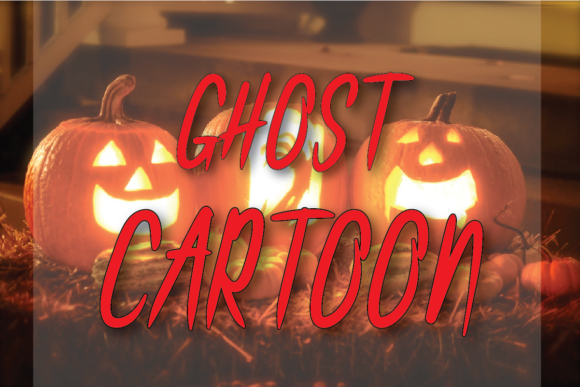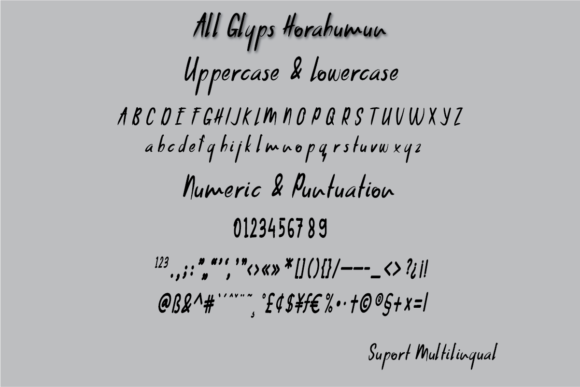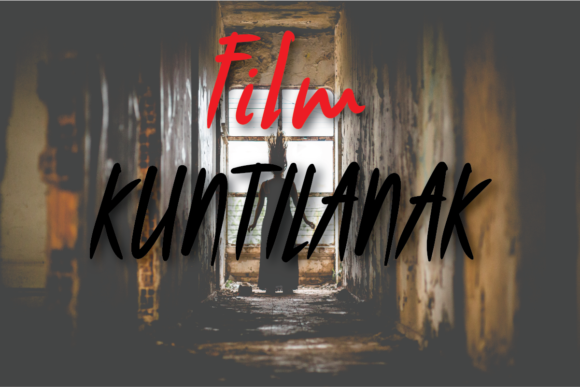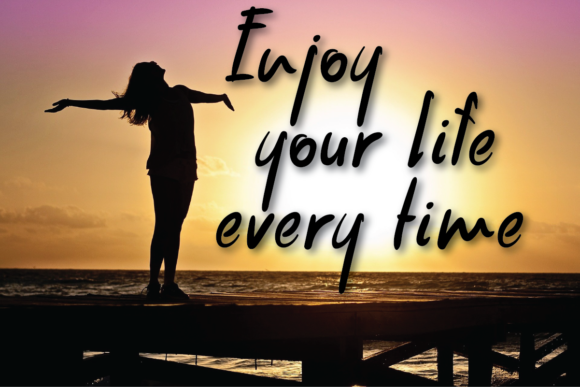
Introduction to Horahumun Font
Make your designs stand out with Horahumun, a stylish and unique display font.
It will look stunning on posters, thank you cards, quotes, greeting cards, logos, business cards and every other design which needs a creative touch .
Key Features of Horahumun Font
Why Choose Horahumun Font?
Horahumun Font offers exceptional quality and versatility, making it a valuable addition to your design toolkit. Whether you’re creating for personal projects or commercial use, Horahumun Font delivers professional results.